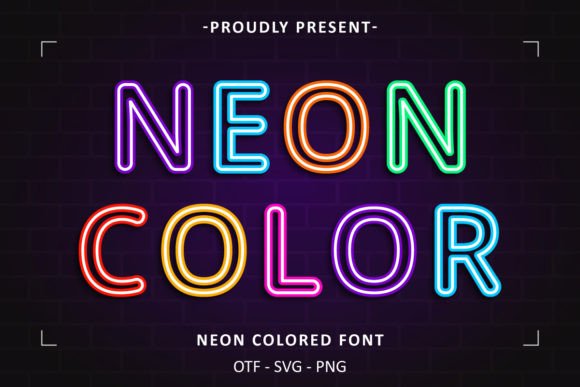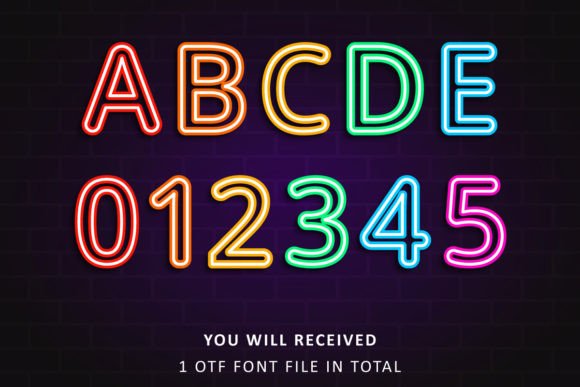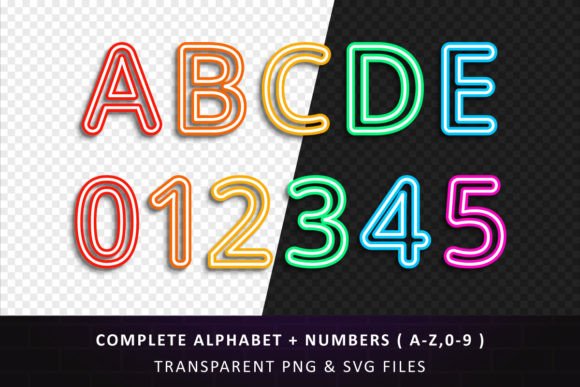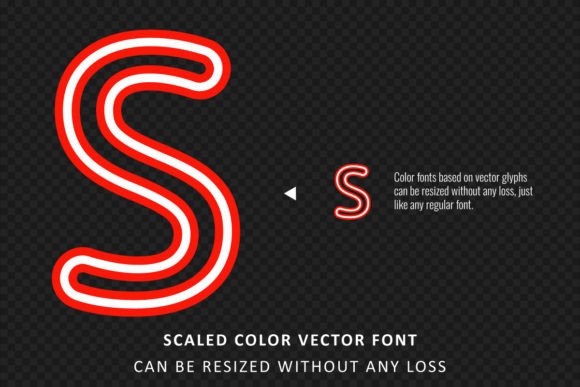
Neon Colored Font
About the Neon Colored Font
From logos to headlines, the Neon Colored Font is the perfect choice for making a lasting impression. Introducing “Neon Colored Font” – This charming font was created with inspiration from colorful neon lights at night. Its vivid hues and sleek letterforms capture the essence of urban neon signs, creating a visually striking and modern aesthetic. Elevate your projects with this unique font, and you will love the results.
Neon Colored Font shines brightest in headline applications, short impactful phrases, and branding elements where its bold, energetic personality can make a statement. It’s ideal for posters, logos, and short social media posts, lending a vibrant, modern feel. Avoid using it for body text or lengthy paragraphs; its strong visual presence isn’t suited for extended reading.
Pairing it with a clean sans-serif like Open Sans for body text provides excellent contrast, allowing the Neon Colored Font to retain its visual punch without overwhelming the design. Alternatively, a classic serif like Garamond offers a sophisticated counterpoint, creating a dynamic tension between modern and traditional.
The font’s core personality is undeniably bold and playful, yet maintains a contemporary edge. This makes it a strong choice for brands targeting youthful, energetic audiences or projects requiring a vibrant, attention-grabbing aesthetic.